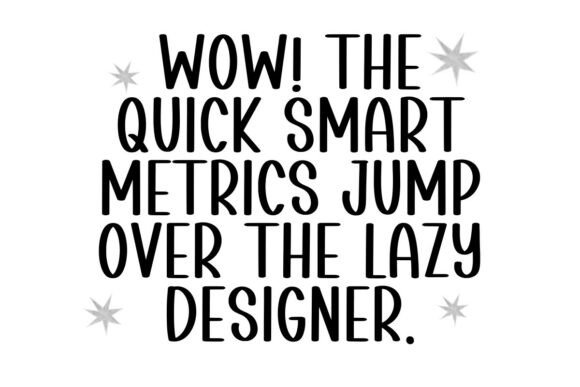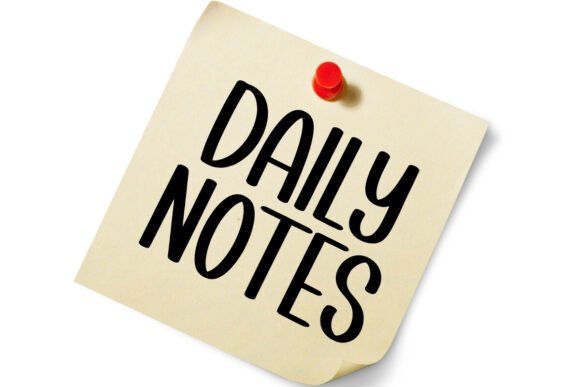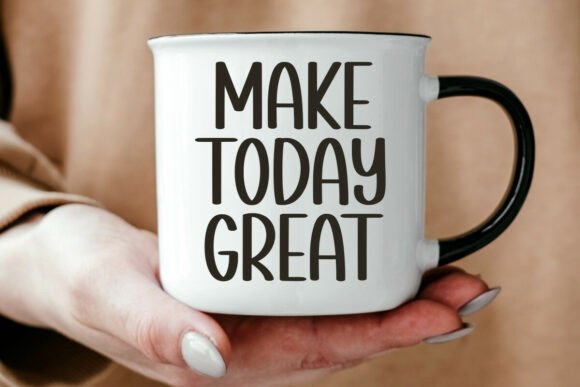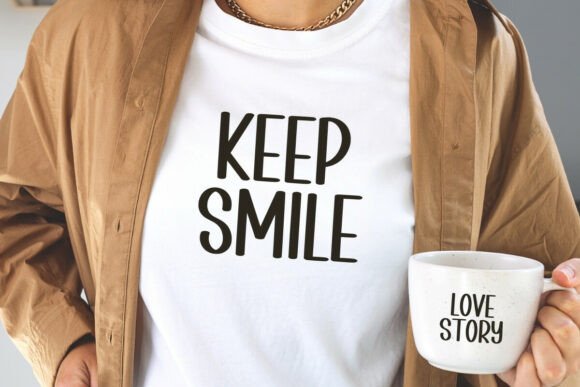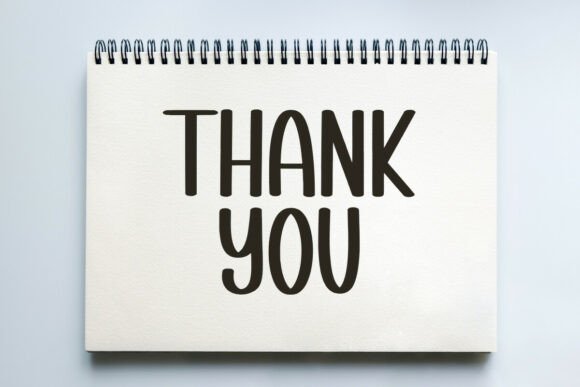
Introduction to Paper School Font
Have you ever stumbled upon the perfect font while working on a creative project and felt like it was meant to be? For designers, that moment of serendipity can be a game-changer. It’s when all the elements of your design come together in perfect harmony, and the typography is the icing on the cake. For those who have experienced this magic, we’re excited to introduce you to the Paper School Font – a lively display font that’s sure to add a sprinkle of fun to any design.
With its high-quality letterforms and rounded edges, Paper School Font exudes a sense of whimsy and versatility, making it an ideal choice for branding, packaging, posters, and anything that calls for a touch of cheerfulness and creativity. As a valuable design resource, this font is perfect for designers looking to add a personal touch to their projects.
Key Features of Paper School Font
- High-quality design resource for creative projects, perfect for digital and print media.
- Includes a range of styles and weights to suit different design needs.
- Designed to be highly legible, making it ideal for body text and titles in various creative projects.
- Perfect for designers, artists, and writers looking for a unique and high-quality font for their next project.
Honest Review: Paper School Font
I recently stumbled upon the Paper School Font, and I must say it’s a fantastic addition to any designer’s toolkit. With a high quality design that exudes a sense of nostalgia and playfulness, this font is perfect for creative projects where you want to add a touch of whimsy.
- High quality design with a unique aesthetic
- Perfect for creative projects that require a playful touch
- May not be suitable for formal or professional projects
Overall, I’m really impressed with the Paper School Font. It’s a great addition to any designer’s toolkit, and I’d highly recommend it to anyone looking to add some creativity and whimsy to their work.
Paper School Font
Paper School Font is a free design resource that offers a high-quality, unique aesthetic perfect for creative projects. With a transparent background, this font is highly versatile and can be used in a variety of applications.
Getting the Most Out of Paper School Font
Some tips for getting the most out of Paper School Font include using it in combination with other design elements, such as graphics and images, and experimenting with different font sizes and styles.
Paper School Font is commonly used in creative projects, such as invitations, posters, and social media graphics. Its unique aesthetic and high-quality design make it a popular choice among designers and creatives.
Alternatives to Paper School Font
Alex Brush Font is a high-quality, elegant script font perfect for creative projects that require a touch of sophistication. It features a transparent background, making it ideal for overlaying on images or using as a design resource for branding materials. When to use: weddings, invitations, and other special occasions. It compares to Paper School Font in terms of its cursive style, but Alex Brush Font is more refined and less playful.
Carolyna Pro Font is a versatile, modern font suitable for a wide range of design projects. It’s available for free download and features a high-quality design, making it a great design resource for designers. When to use: packaging, signage, and other commercial projects. It compares to Paper School Font in terms of its modern feel, but Carolyna Pro Font is more geometric and less whimsical.
Great Vibes Font is a beautiful, handwritten font perfect for creative projects that require a touch of personality. It features a transparent background and a high-quality design, making it a great design resource for designers. When to use: social media, blog posts, and other online content. It compares to Paper School Font in terms of its playful style, but Great Vibes Font is more casual and less structured.